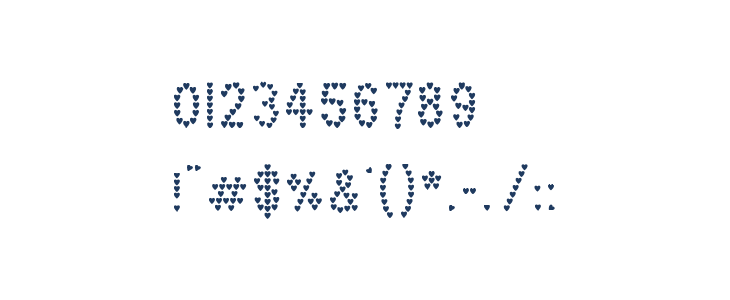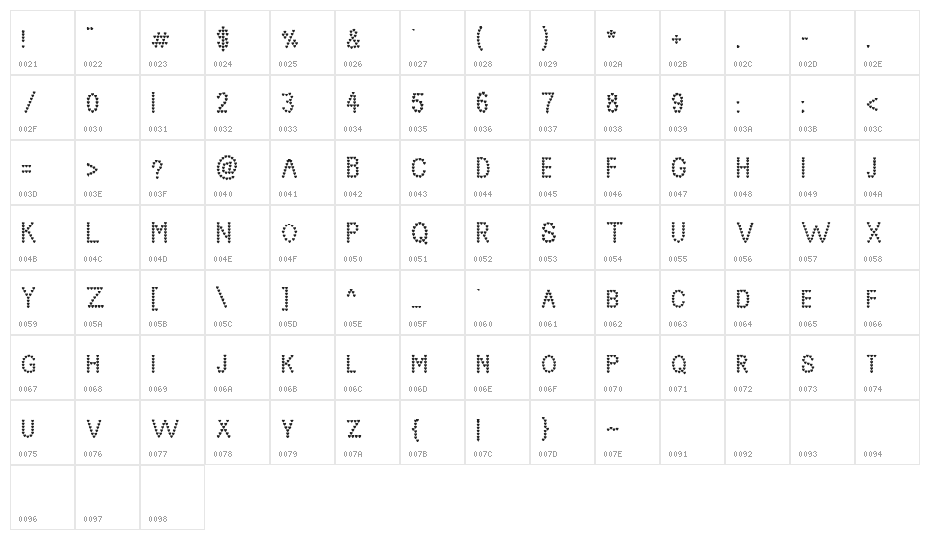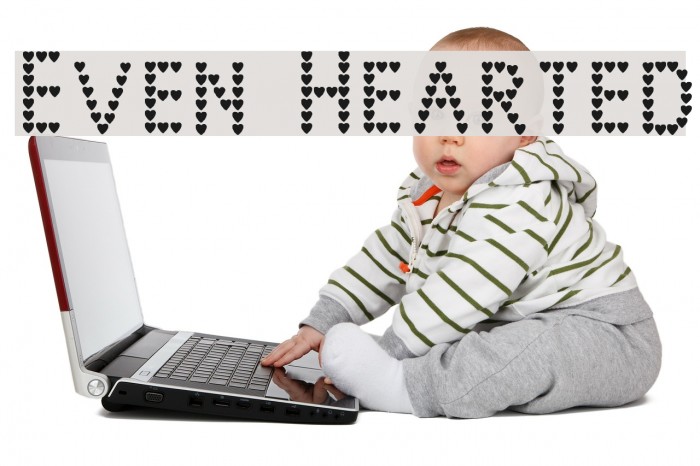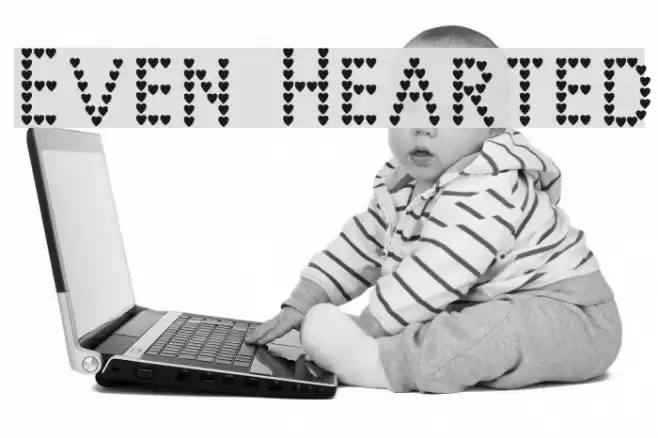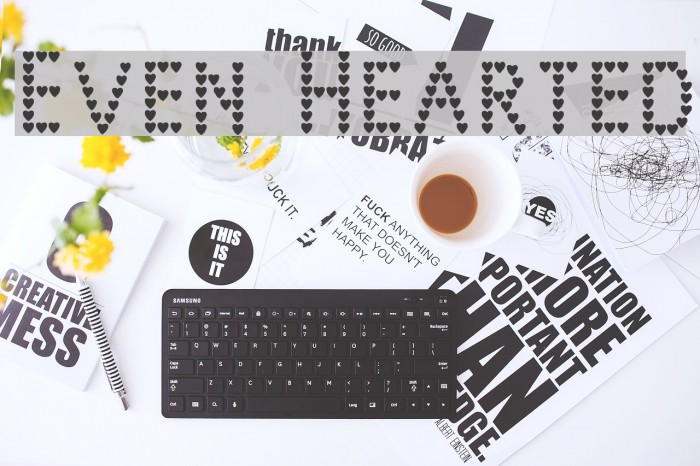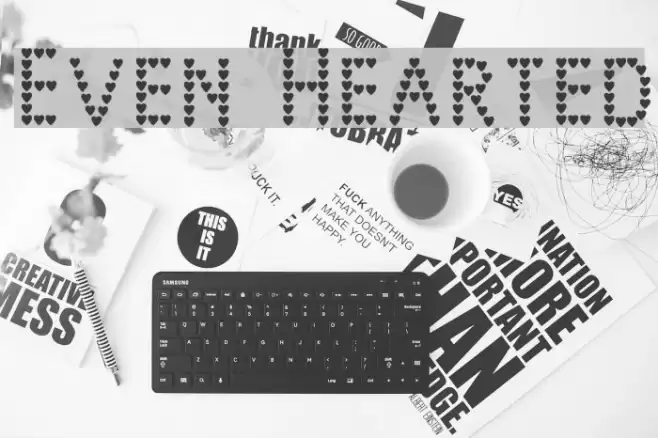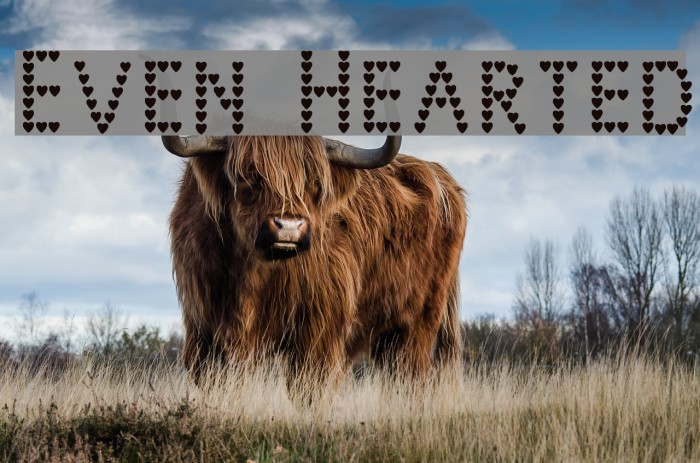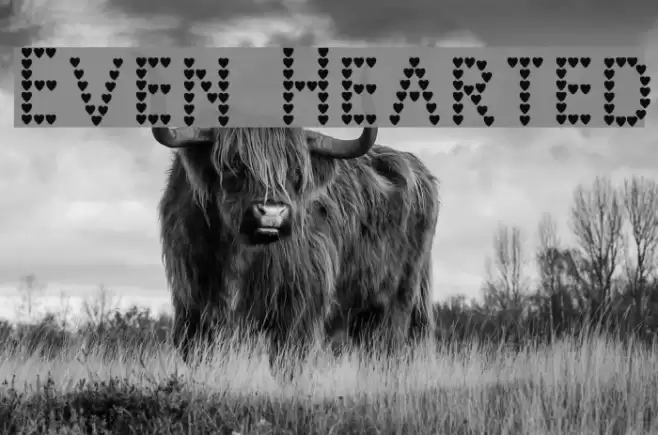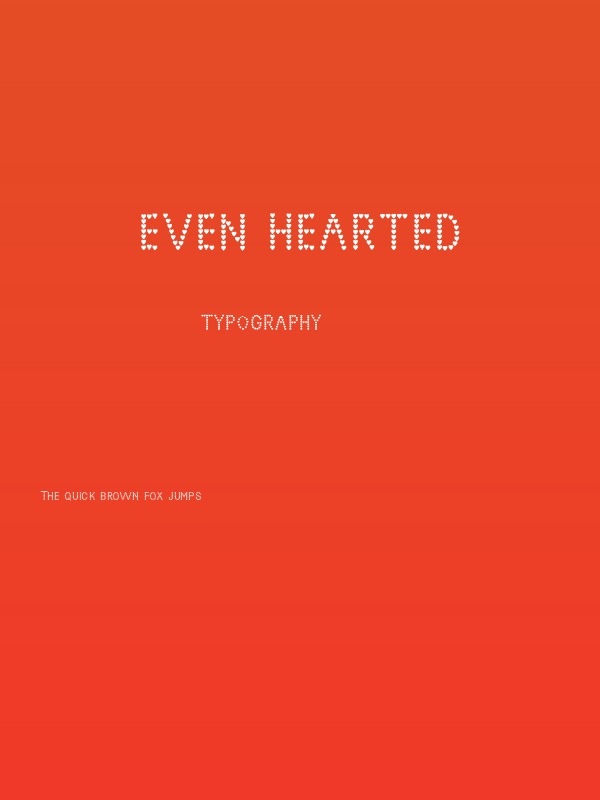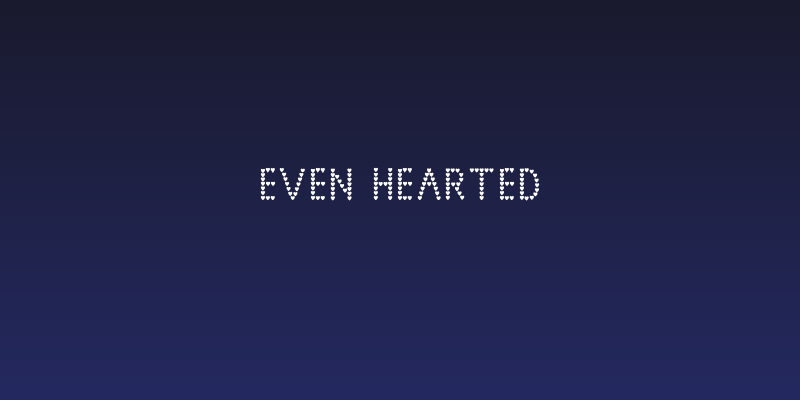
Even Hearted Font
Even Hearted Description
This playful and decorative font is composed entirely of small heart shapes, forming each letter and character. It features both uppercase and lowercase alphabets, as well as numbers and a variety of special characters. The heart motif gives it a whimsical and romantic feel, making it ideal for projects that require a touch of charm and affection. The characters are evenly spaced, ensuring readability while maintaining a unique and engaging appearance. This font is perfect for creative designs that aim to convey warmth and friendliness.
| Proposed Projects | Ideal for Valentine's Day cards, wedding invitations, love-themed posters, and playful branding materials. |